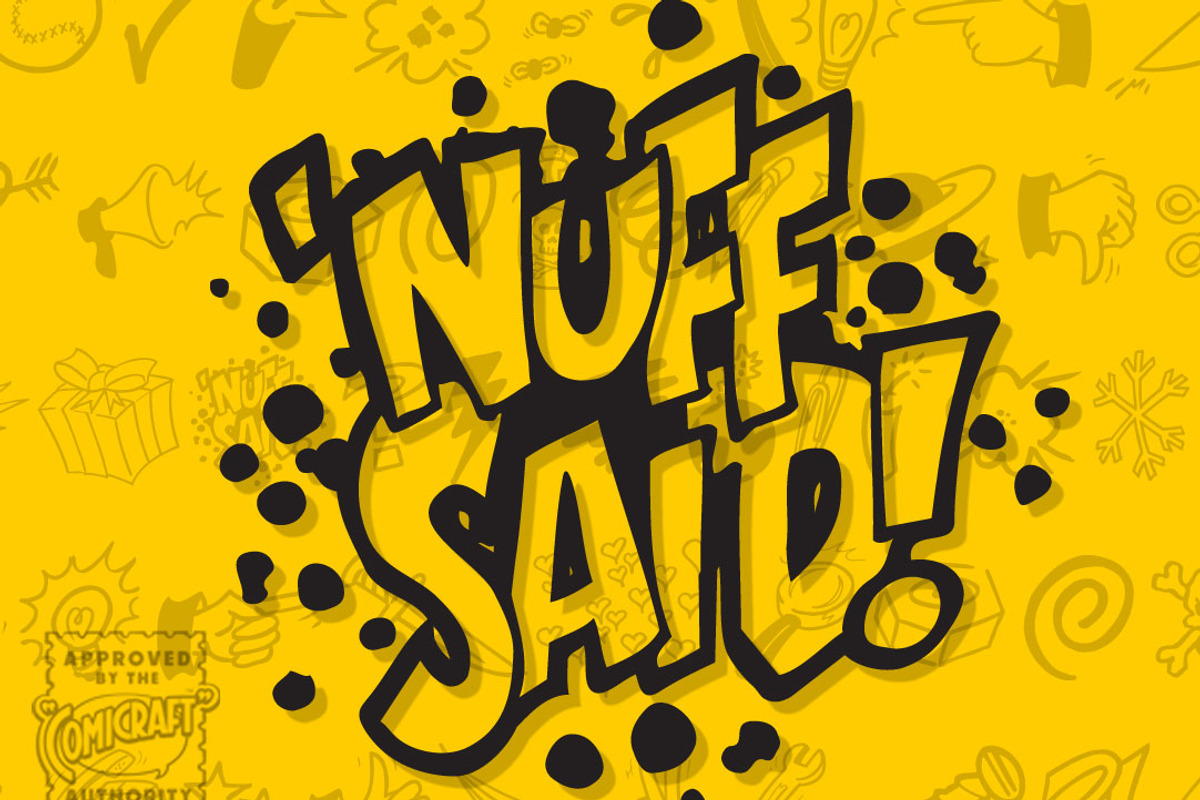
Nuff Said
Nuff Said by Comicraft Fonts is a font selected for branding, posters, packaging, typography.
Nuff Said by Comicraft Fonts fits naturally into Branding, posters, packaging, typography.